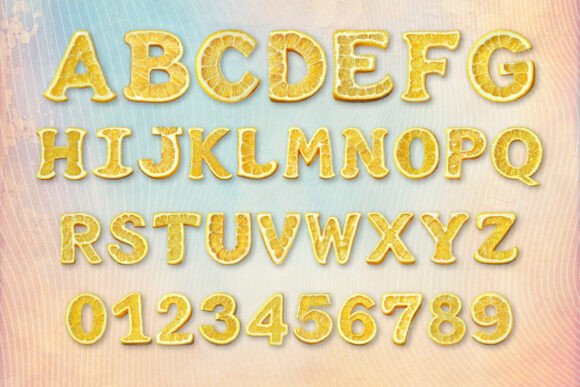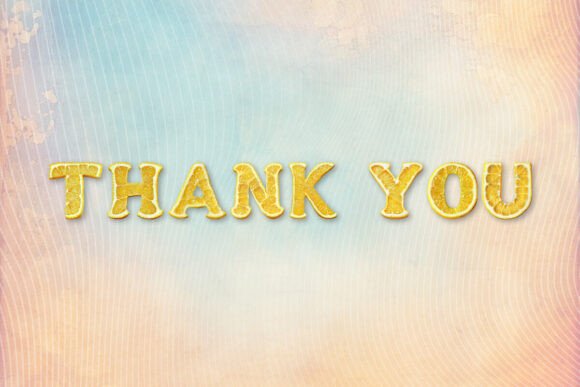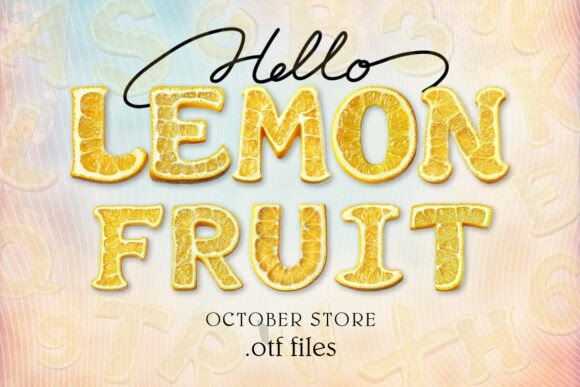
Lemon Fruit Font
About the Lemon Fruit Font
Welcome to the world of Lemon Fruit Font, a typeface that will inspire your next great project. Introducing the Lemon Fruit Alphabet Font – the perfect summer-inspired typeface where each character bursts with a fruitful and exotic appeal. Immerse yourself in a typographic experience that mirrors the zesty vivacity of a kiwi, brimming with vitamins. Revamp your design projects with this playful font and make your texts as refreshing and delightful as a sweet summer fruit. Enjoy the sunny vibe and the joyful spirit of the season all year round with the Lemon Fruit Alphabet Font. Infuse a healthy dose of freshness and appeal into your projects with this vitamin-packed font. The Lemon Fruit Alphabet Font is not just a font, it’s a creative splash of summer in letter form.